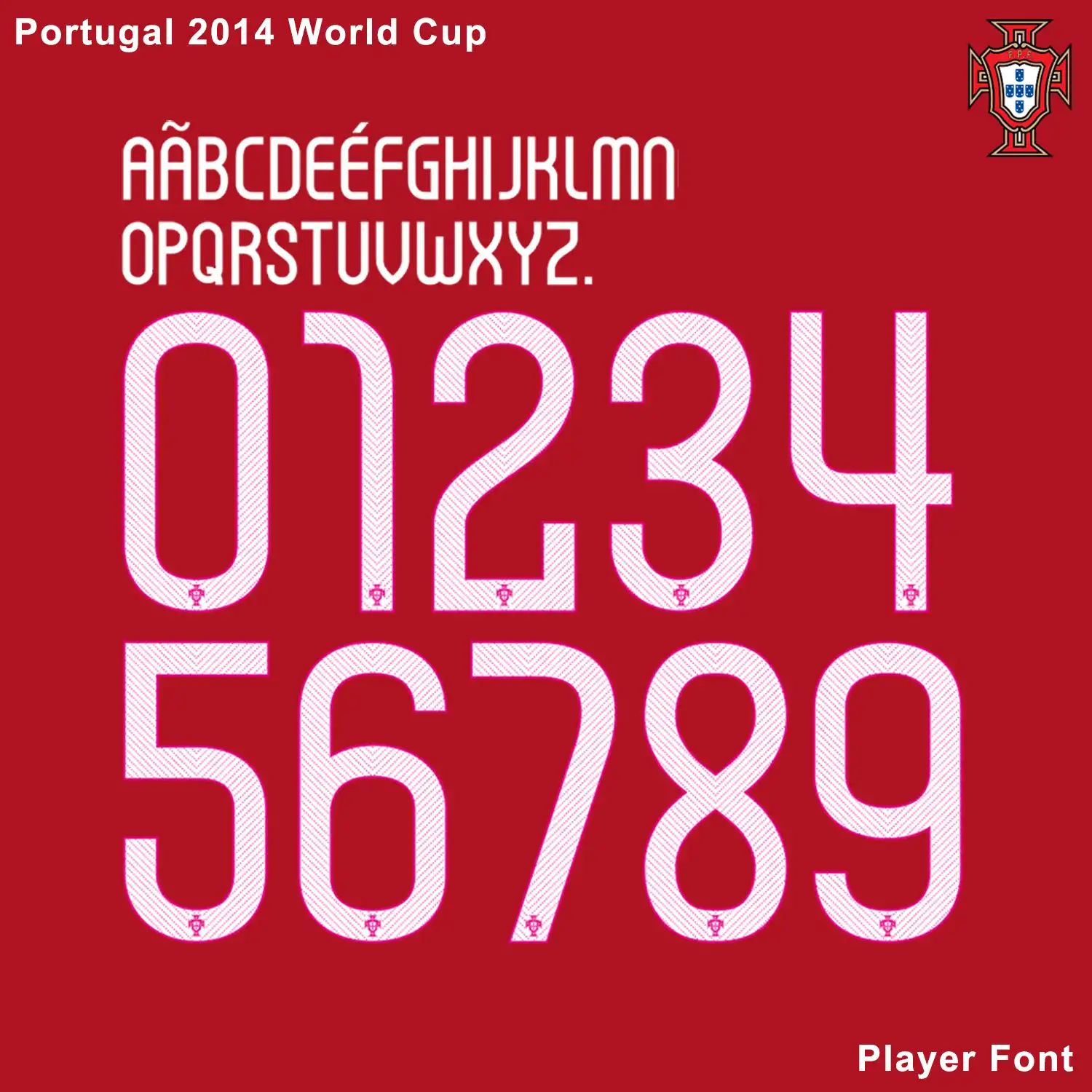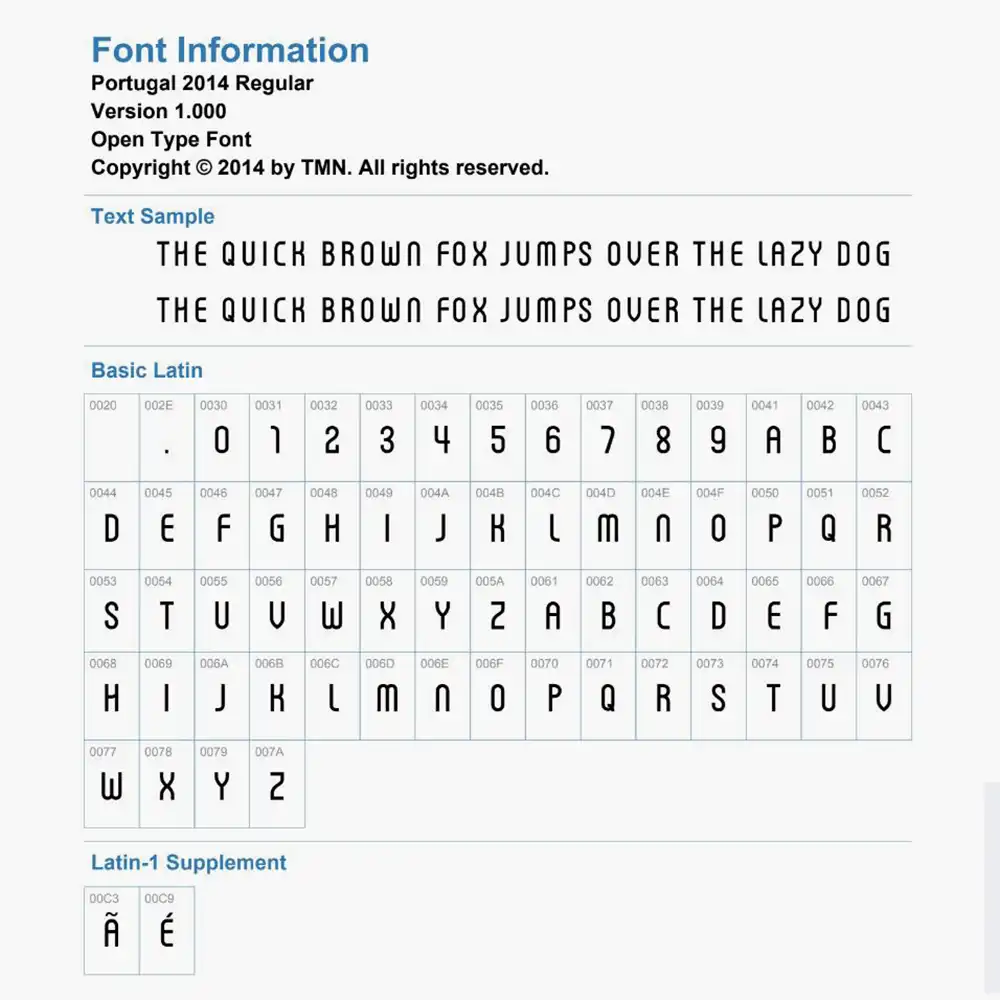
Portugal 2014 World Cup Font
Relive the Legend with the Portugal 2014 World Cup Font
Step back into 2014 with the official-style Portugal 2014 World Cup Font. This typeface is a fan favorite, famously worn by Cristiano Ronaldo and the Portuguese national team during the tournament in Brazil. Its sharp, tall, and sleek design remains one of the most recognizable in football history.
• High-Quality Recreation: Every letter and number features the subtle inline texture and the official FPF crest at the base.
Full list of letters and numbers for Portugal 2014 World Cup font.Portugal 2014 World Cup Font